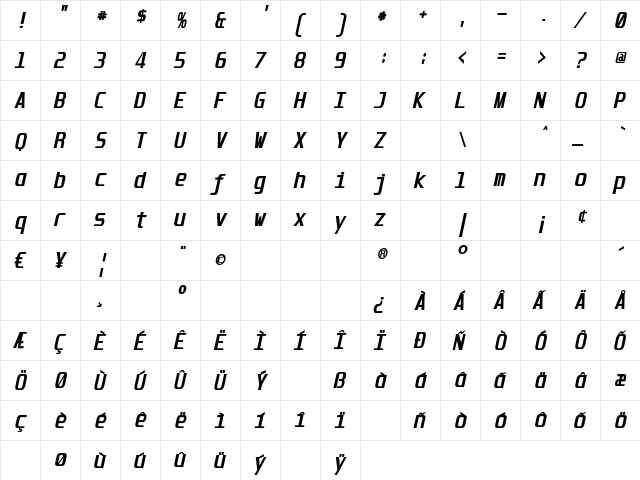
Unispace Bold Italic
Design Context for Unispace Typeface
Unispace is a composed and adaptable typeface that performs quietly and consistently across a wide range of design contexts. The dynamic lean of this cut emphasises speed and emphasis in any layout. The heavy weight commands attention and anchors typographic hierarchies.
Pro Tip: Use Unispace for emphasis, pull quotes, and subheadings where its slanted energy can add rhythm to the layout.